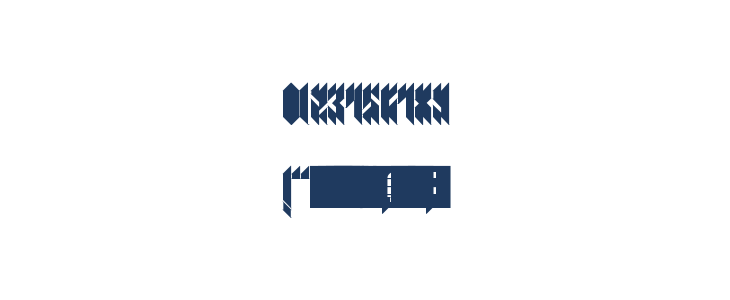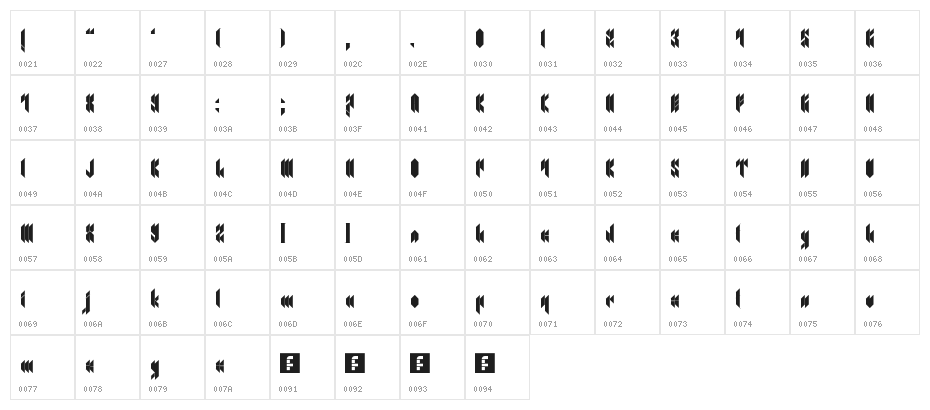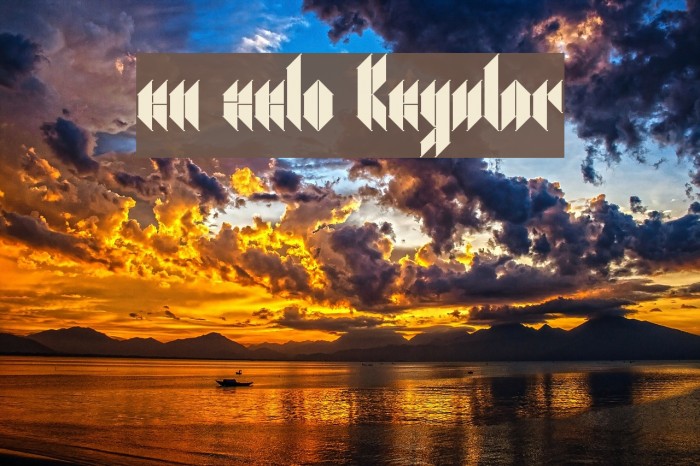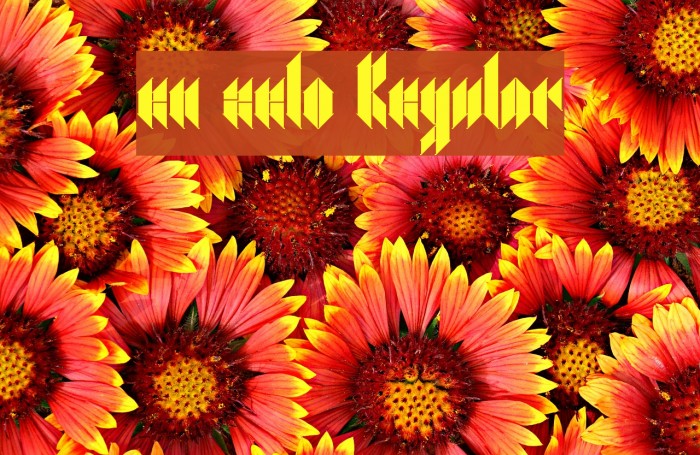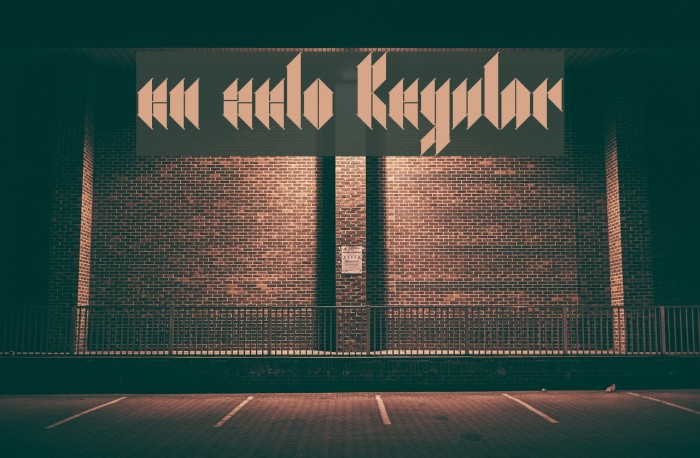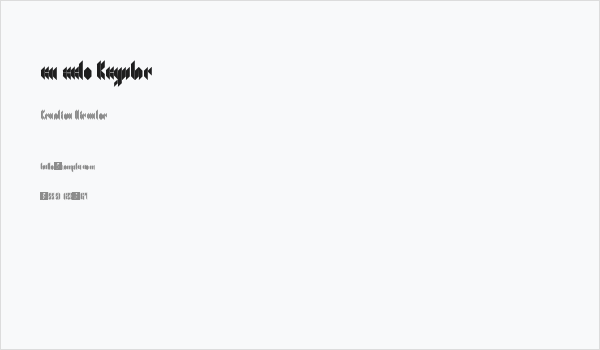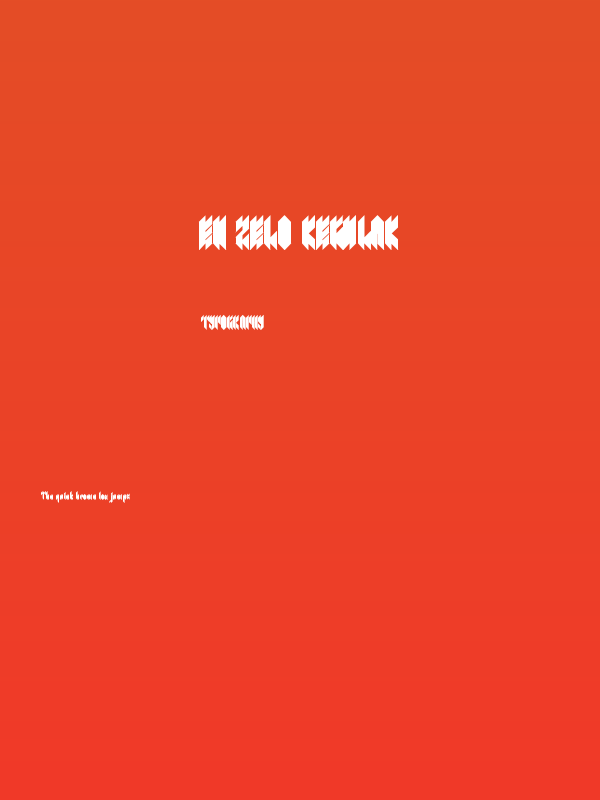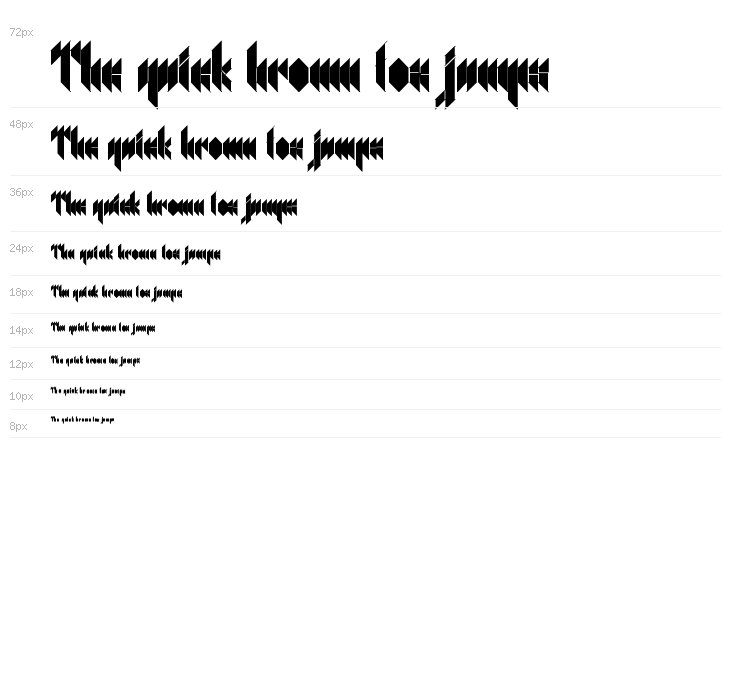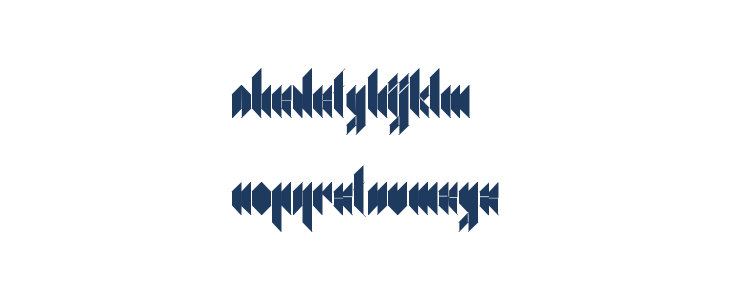
en zelo Regular Font
en zelo Regular Description
This font features a bold and striking design with sharp, angular edges and a distinct geometric style. The characters are constructed with a high level of precision, creating a sense of movement and energy. The uppercase and lowercase letters maintain a consistent style, with the uppercase letters being slightly more pronounced. Numbers and special characters follow the same angular theme, ensuring uniformity across the font. The overall appearance is modern and edgy, making it suitable for projects that require a strong visual impact.
| Proposed Projects | Ideal for branding, posters, album covers, and any project needing a bold, modern aesthetic. |